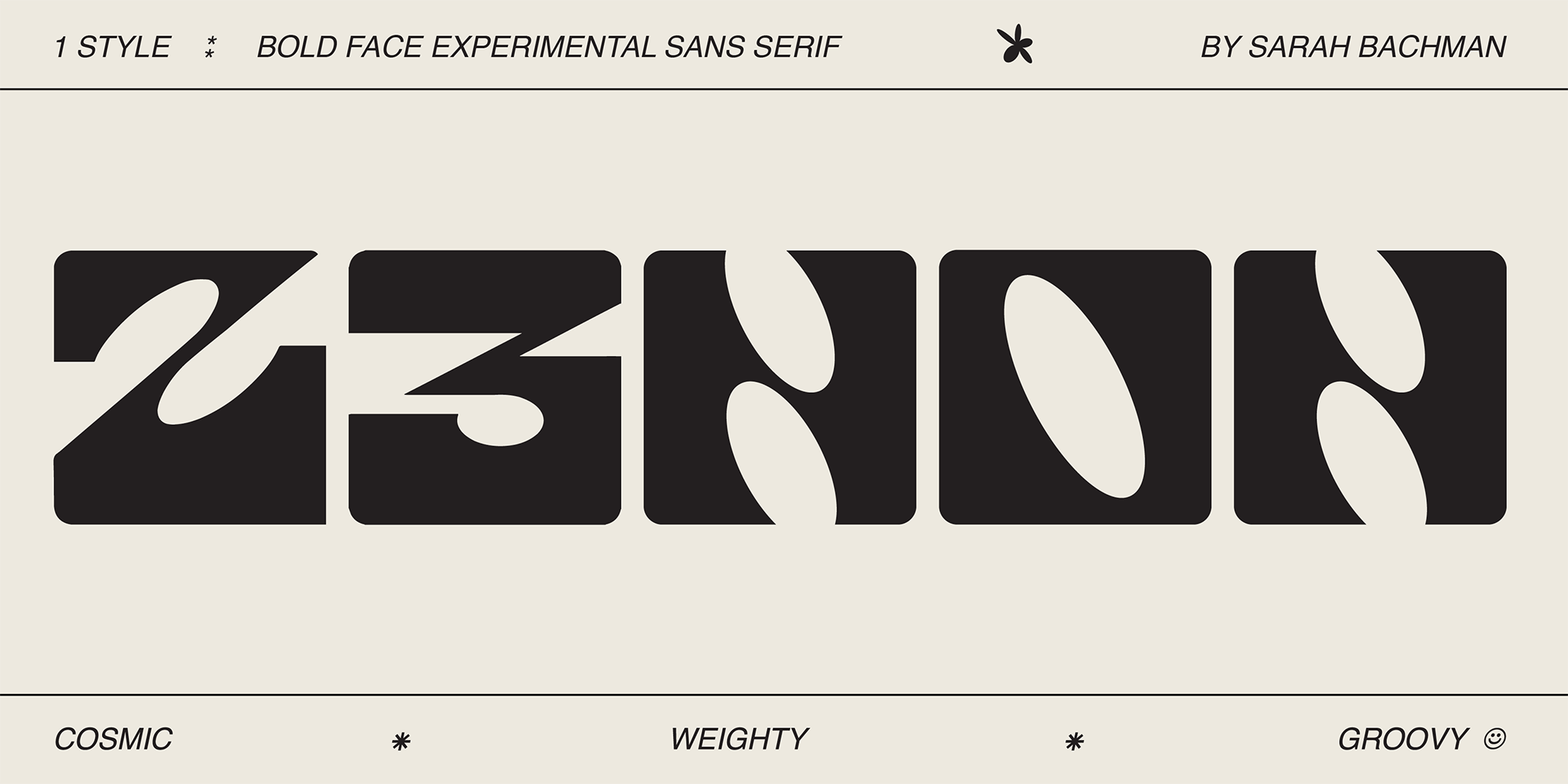
The Z3non Font is ideal for futuristic gaming interfaces, cyberpunk movie titles, sci-fi technology brands, digital art installations, virtual reality experiences, cryptocurrency platforms, blockchain technology companies, and cutting-edge software applications. This striking typeface excels in applications where technological innovation and digital sophistication need to be emphasized, making it perfect for tech companies that want to communicate advanced capabilities and next-generation thinking through bold futuristic typography.
What makes Z3non Font exciting is its radical digital aesthetic and cyber-enhanced character that pushes the boundaries of conventional typography into tomorrow's digital landscape. The font's angular geometry and technological precision create an atmosphere of advanced computing and digital evolution, making it ideal for brands that want to position themselves at the forefront of technological revolution and digital transformation. Its futuristic presence ensures that every application feels cutting-edge and technologically superior.
The Z3non Font family typically includes regular, bold, and ultra-bold weights, often featuring digital effects, cybernetic alternates, and tech-inspired symbols that enhance its futuristic appeal. Many versions include circuit board elements, binary code ornaments, and specialized characters that provide designers with comprehensive tools for creating authentic sci-fi design projects with genuine technological sophistication and digital innovation.
For designers working on projects that require technological credibility and futuristic authenticity, Z3non Font Free Download delivers exceptional digital impact. Its ability to instantly communicate advanced technology and cyber sophistication makes it an invaluable choice for tech startups, gaming companies, and any project requiring typography that embodies the revolutionary spirit of digital innovation, the precision of advanced computing, and the limitless possibilities of future technology.